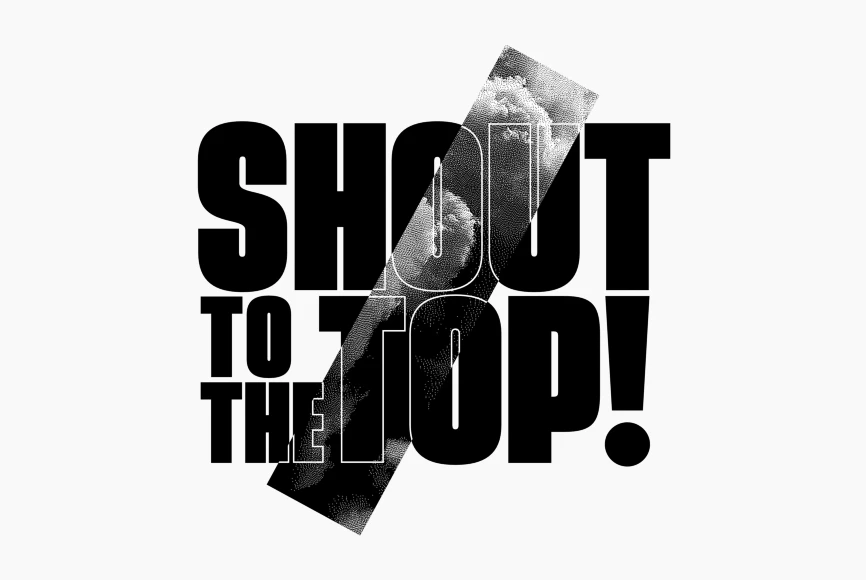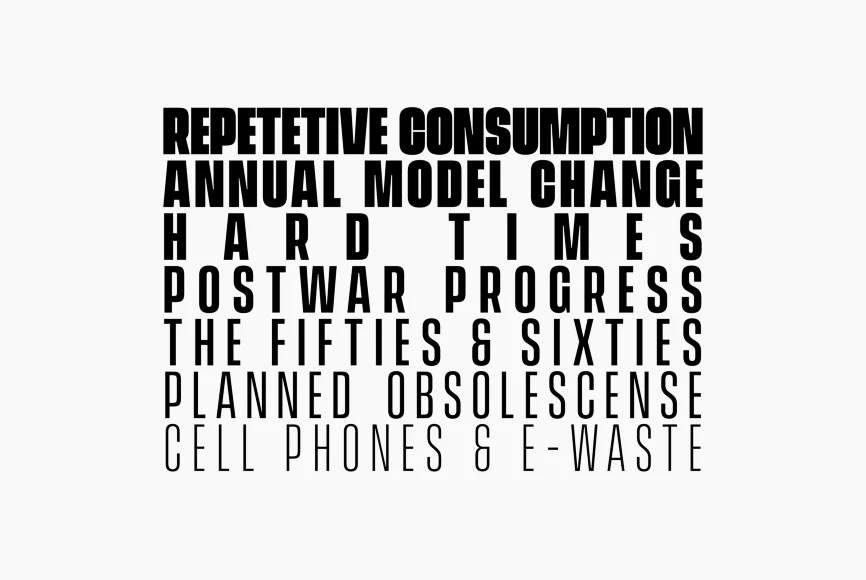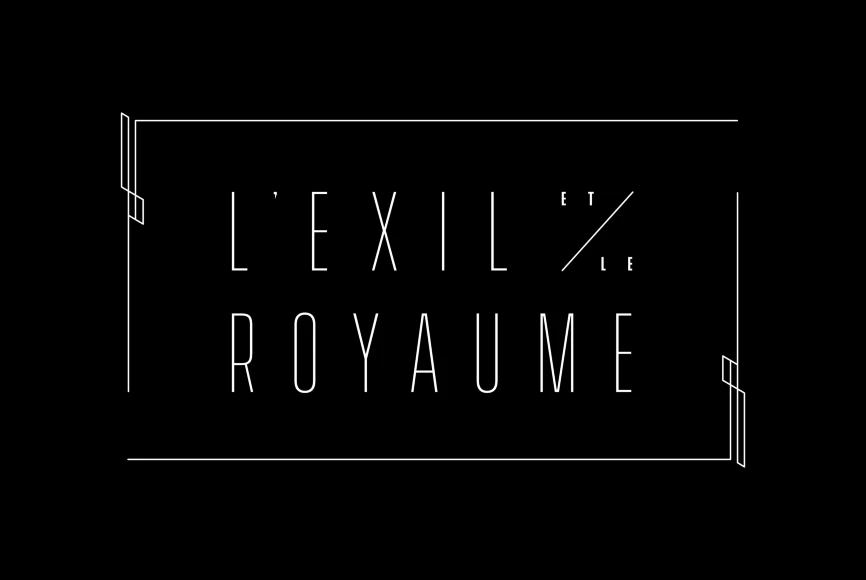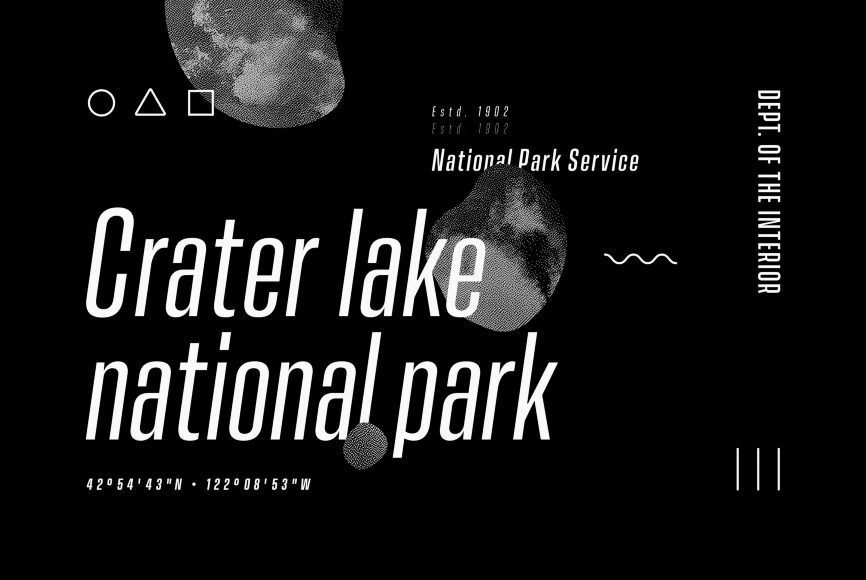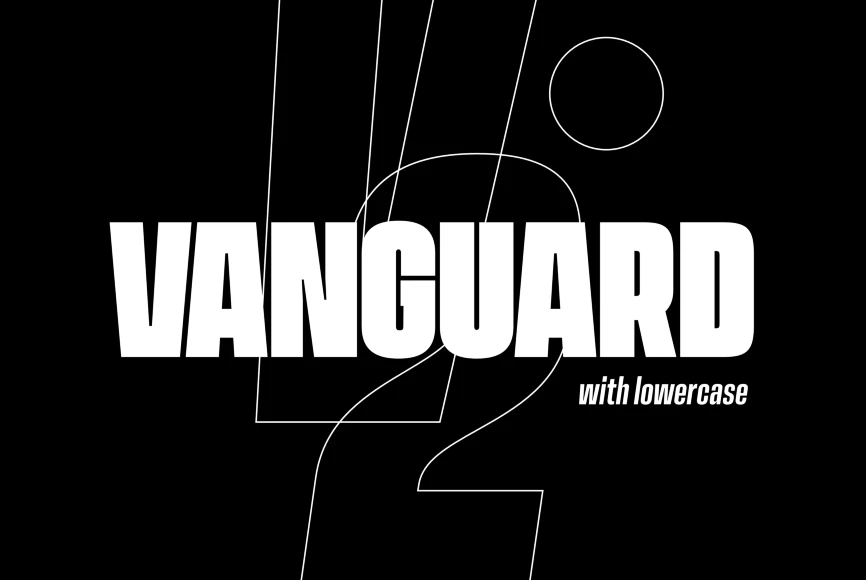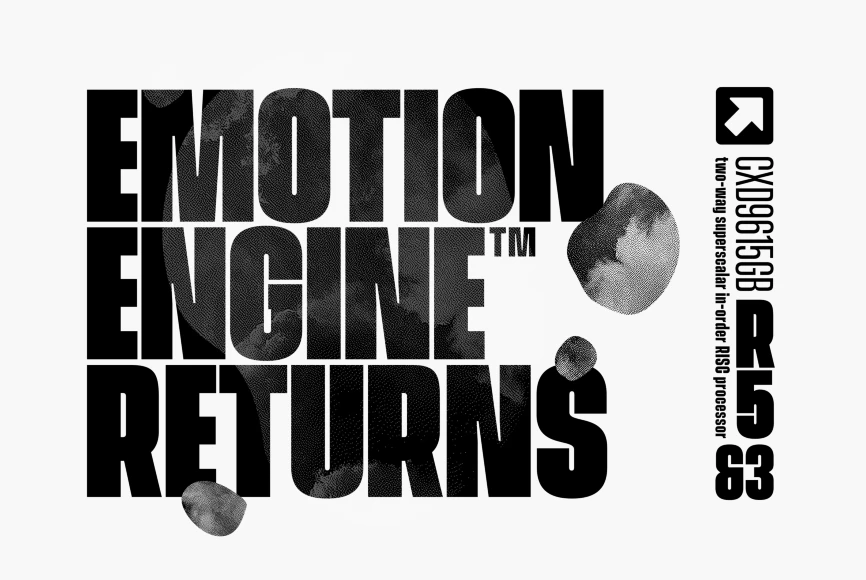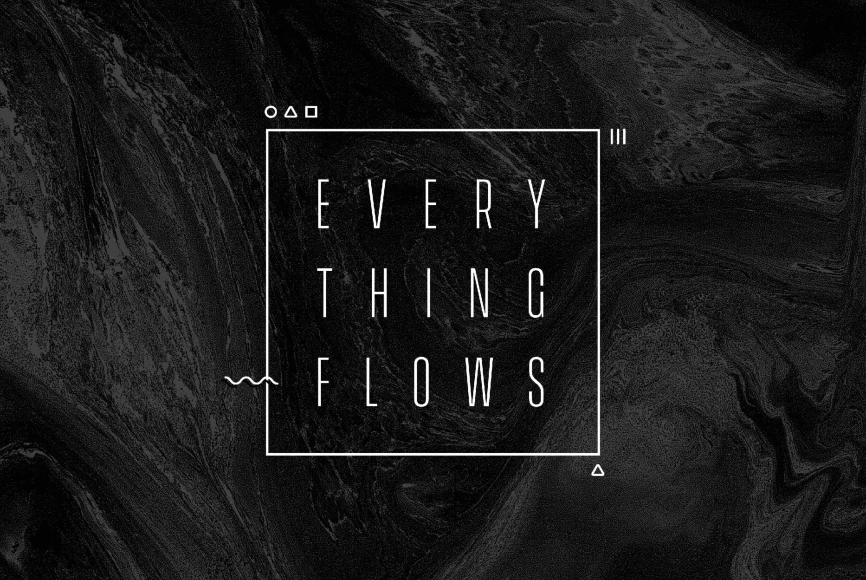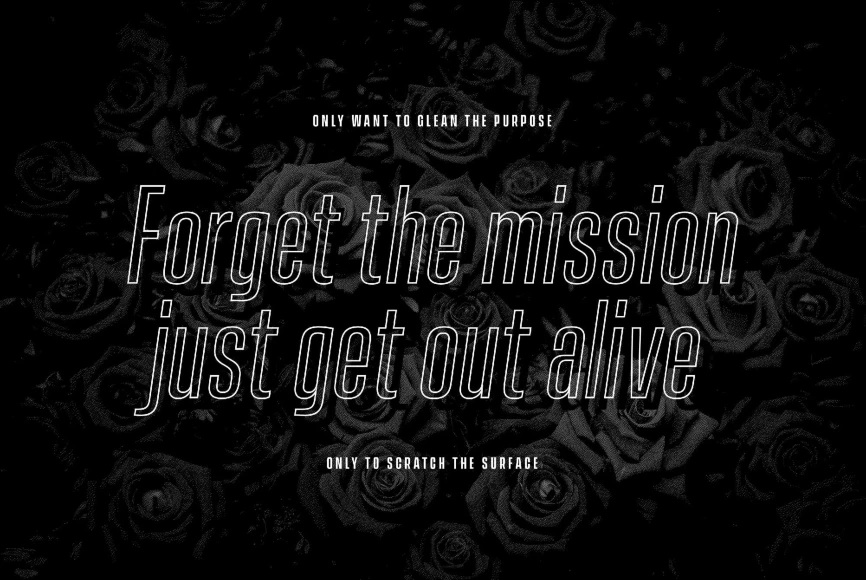
Vanguard
From Connary Fagen Fonts
Vanguard CF is a powerful and elegant display typeface, constructed to maximize horizontal space. Built from sketches originally drawn in 2012, Vanguard’s eight weights span an elegant Thin to an arresting Heavy, with accompanying obliques. As with its sibling Integral CF, Vanguard makes a strong impression in print, headlines, video, and social media – whether paired with a contrasting typeface or on its own.
Designed by Connary Fagen